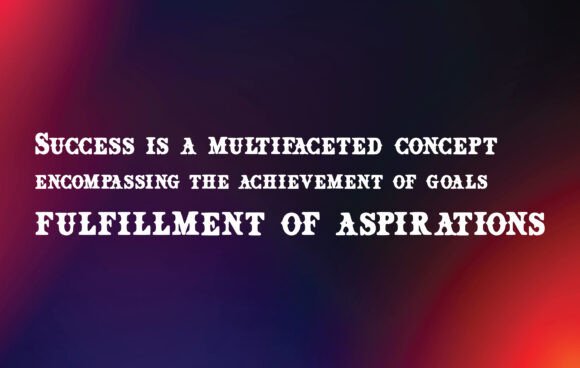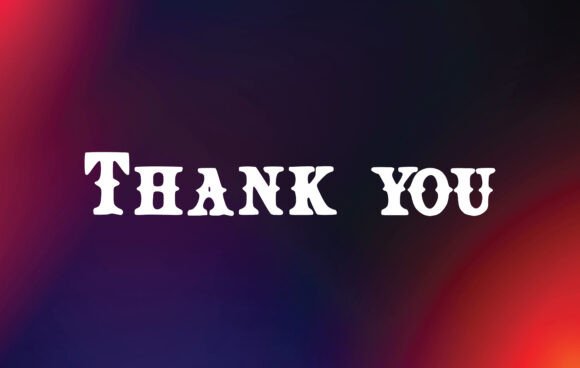
The Cayson Font: A Slab Serif Stunner for Creative Projects
I’ll never forget the time I was working on a logo design project for a trendy coffee shop. My client wanted a font that was both modern and rustic, with a dash of playfulness. I scoured the internet for hours, but nothing seemed quite right. That was until I stumbled upon the Cayson font. ✨
This lovely slab serif font has been a game-changer for my design projects, and I’m excited to share its awesomeness with you. In this article, we’ll dive into the world of Cayson, exploring its features, uses, and some helpful tips for getting the most out of this beautiful font.
An Honest Review of Cayson Font
What I Love About Cayson
- ✨ Unique character: Cayson has a distinct personality that sets it apart from other slab serif fonts.
- ✅ High versatility: It works beautifully for logos, branding, quotes, and even body text.
- 💡 Excellent legibility: The font is clear and easy to read, even at small sizes.
- 🎨 Great for creative projects: Cayson’s playful vibe makes it perfect for designs that require a bit of whimsy.
While Cayson is an amazing font, it’s not perfect. Here are a few things to keep in mind:
- 🤔 Limited use for formal projects: Cayson’s playful nature might not be suitable for very formal or corporate designs.
- ⚠️ Some letter spacing issues: You might need to adjust the letter spacing for certain combinations of letters to achieve optimal results.
- Experiment with OpenType features like stylistic alternates and glyphs to add some extra flair to your design.
The Backstory of Cayson Font
Cayson was designed by a talented type designer who wanted to create a font that was both beautiful and functional. Inspired by classic slab serif fonts, Cayson’s creator aimed to craft a font that would be perfect for creative projects, from logos to quotes. With its unique character and versatility, Cayson has quickly become a favorite among designers and crafters.
Q: What type of projects is Cayson best suited for?
A: Cayson is perfect for creative projects like logos, branding, quotes, and social media graphics. Its playful vibe makes it ideal for designs that require a bit of whimsy.
Q: Can I use Cayson for body text?
A: Yes, Cayson is legible enough to use for body text, but it might not be the best choice for very long documents or formal writing.